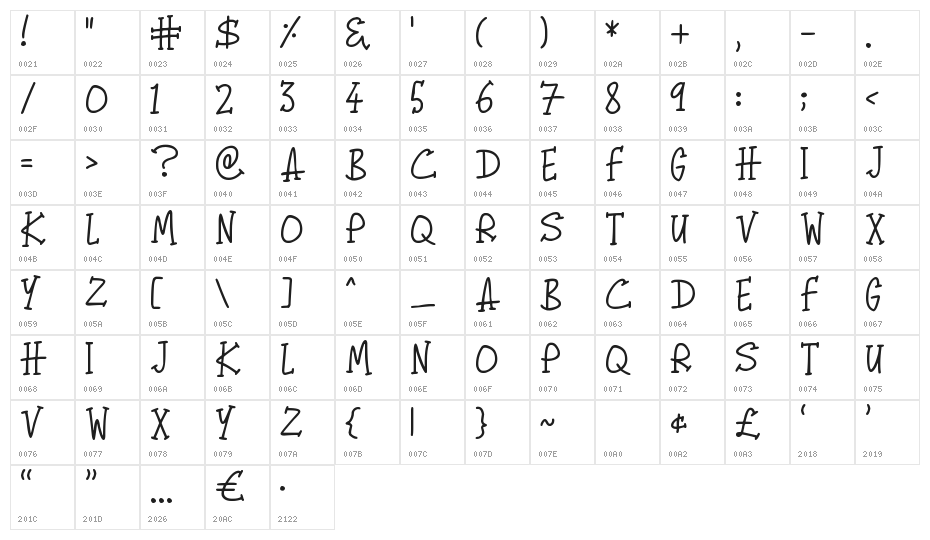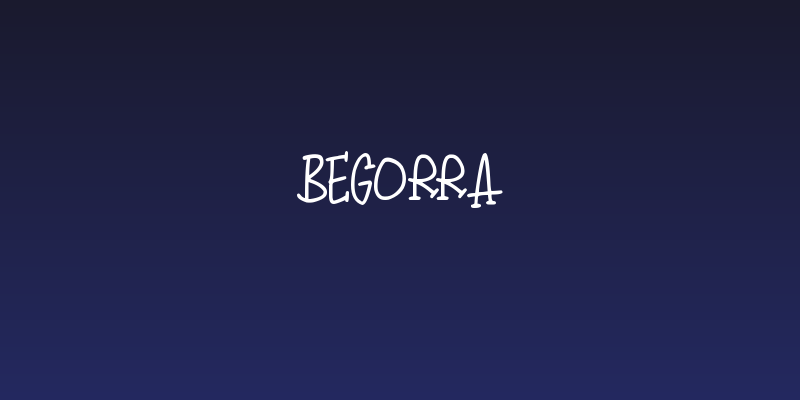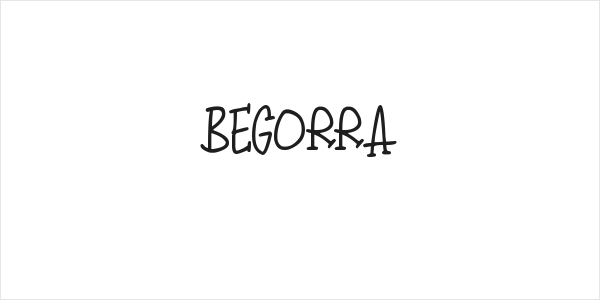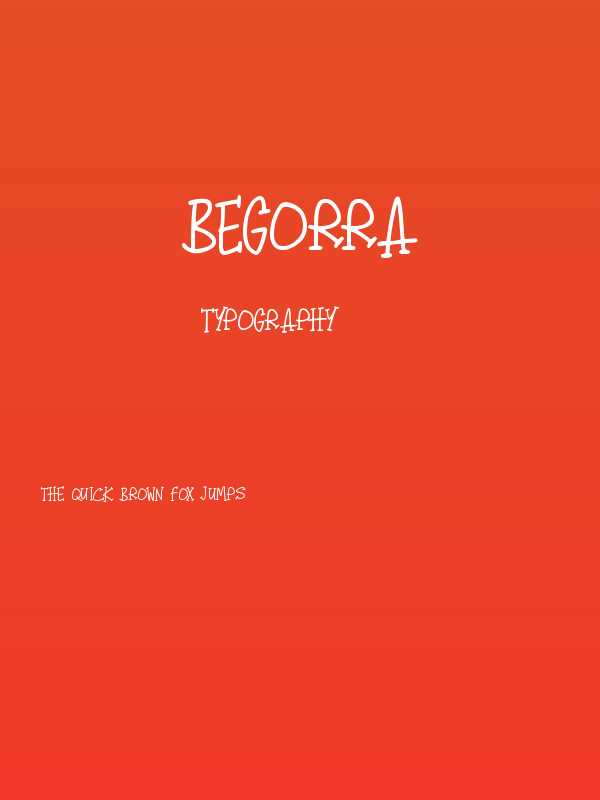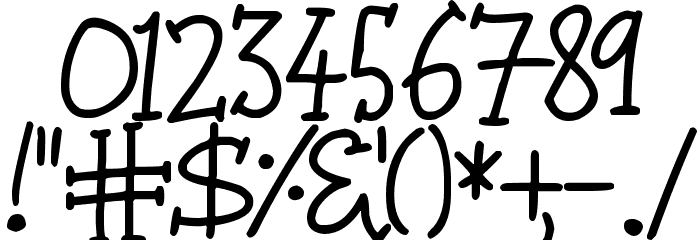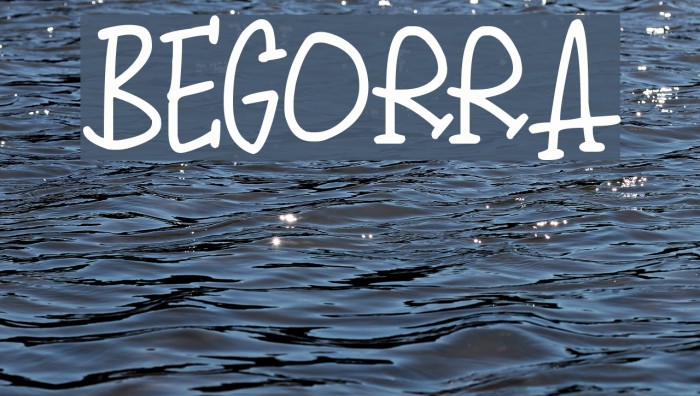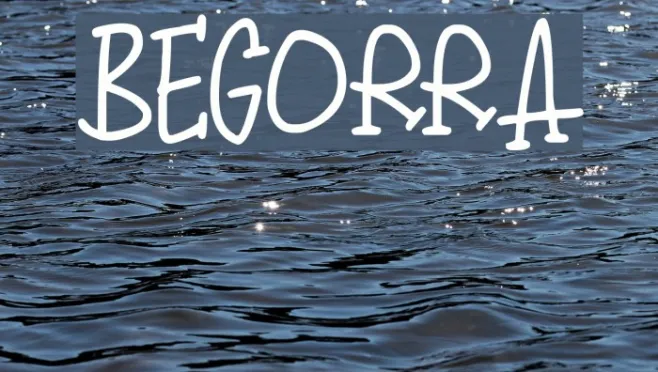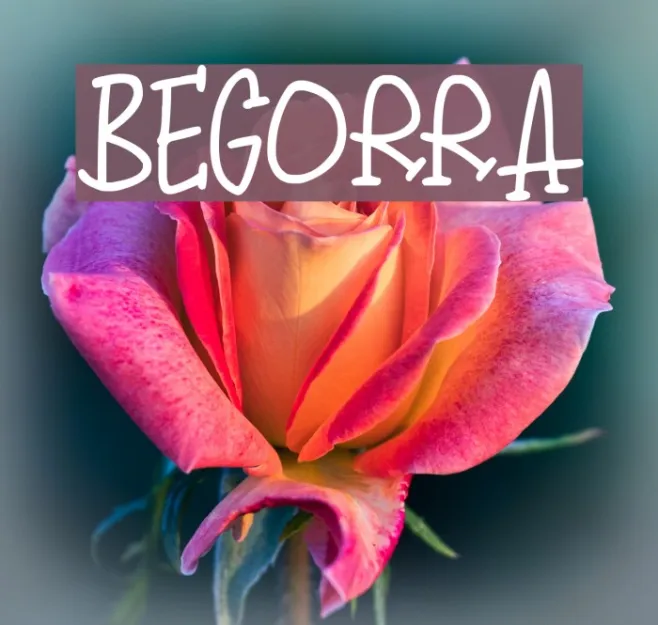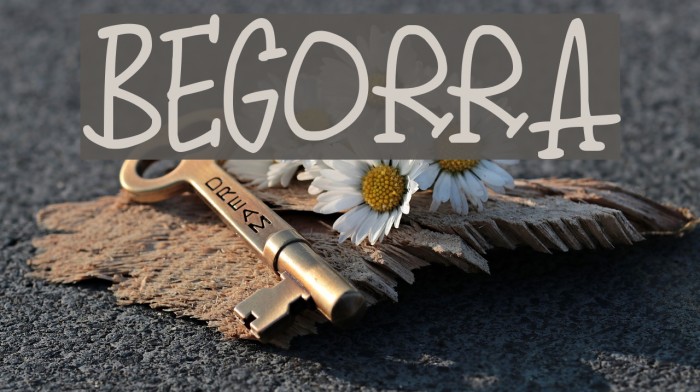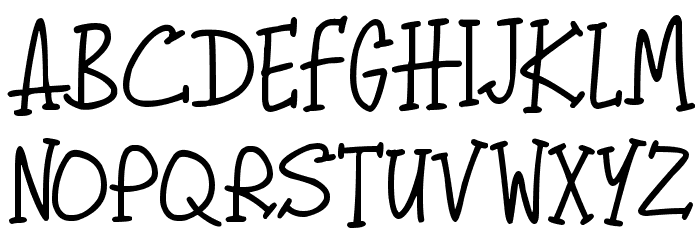
Begorra Font
Begorra Description
This font features a playful and whimsical style, characterized by its hand-drawn appearance and slightly irregular letterforms. The strokes are bold and consistent, giving it a strong presence while maintaining a casual and approachable feel. The characters are slightly condensed, with a moderate contrast in stroke thickness that adds to its dynamic look. The font includes a full set of uppercase and lowercase letters, numerals, and a variety of special characters, making it versatile for different uses. Its unique style is perfect for projects that require a touch of personality and creativity.
Darrell Flood